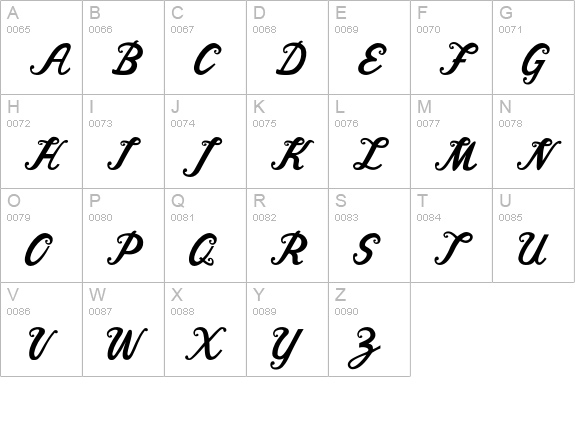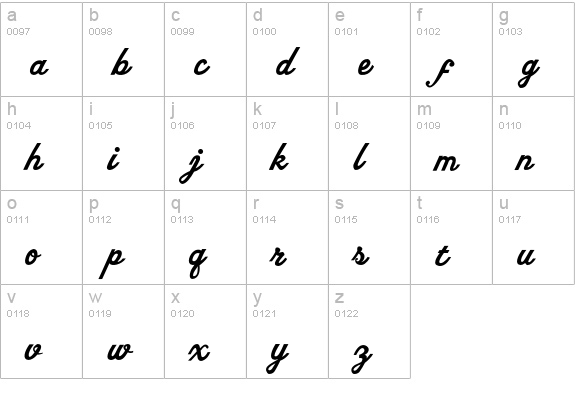
Vitrina Font Details
Vitrina font is a stunning and versatile typeface that combines the best of modern elegance with classic charm. Its sleek and sophisticated design makes it perfect for a wide range of projects, from branding and advertising to web design and editorial work. Featuring clean lines and balanced proportions, Vitrina font exudes a sense of professionalism and refinement. Its timeless appeal makes it a great choice for both formal and informal applications, adding a touch of sophistication to any design. One of the most remarkable aspects of Vitrina font is that it is available for free. Yes, you read that right! This high-quality font can be downloaded at no cost from FontsMarket.com, making it accessible to designers, students, and anyone looking to enhance their creative projects without breaking the bank. With its wide range of weights and styles, Vitrina font offers endless possibilities for customization and creativity. Whether you're looking for a bold and impactful headline or a subtle and understated body text, this font has got you covered. The attention to detail in Vitrina font is evident in its perfectly balanced letterforms and smooth curves. Each character is meticulously crafted to ensure legibility and readability, even at smaller sizes. This level of precision and craftsmanship sets Vitrina font apart from the rest, making it a top choice for designers who value quality and excellence. So, why wait? Don't miss out on the opportunity to download Vitrina font for free at FontsMarket.com and elevate your designs to new heights. Whether you're working on a personal project or a professional assignment, this font will bring a touch of sophistication and elegance to your work. Give your designs the attention they deserve with Vitrina font.